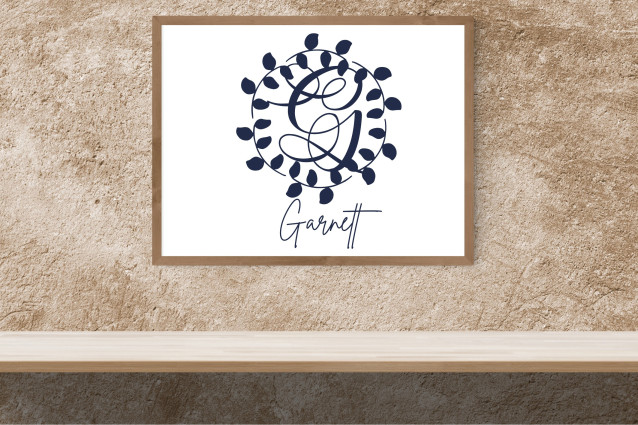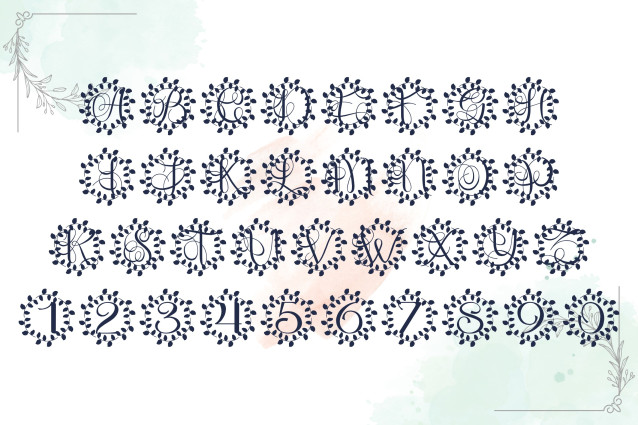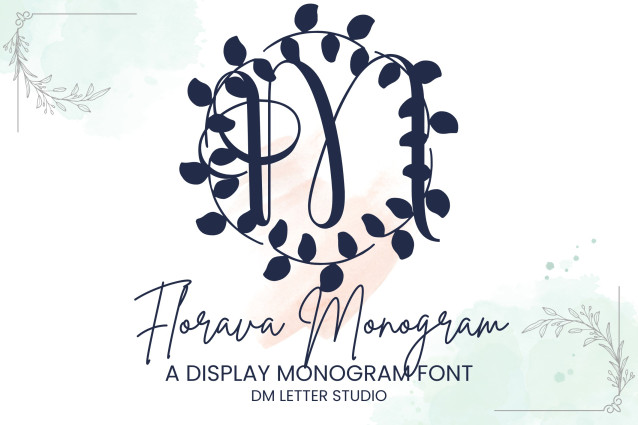
Florava Monogram Font
Florava Monogram Font is a soft and romantic monogram font with flowing floral details and refined serif structure. Each uppercase letter is enhanced with hand-drawn botanical flourishes, giving it a graceful, nature-inspired elegance. Perfect for wedding stationery, boutique branding, personalized packaging, and creative monogram projects, Florava Monogram brings beauty and harmony to every design.